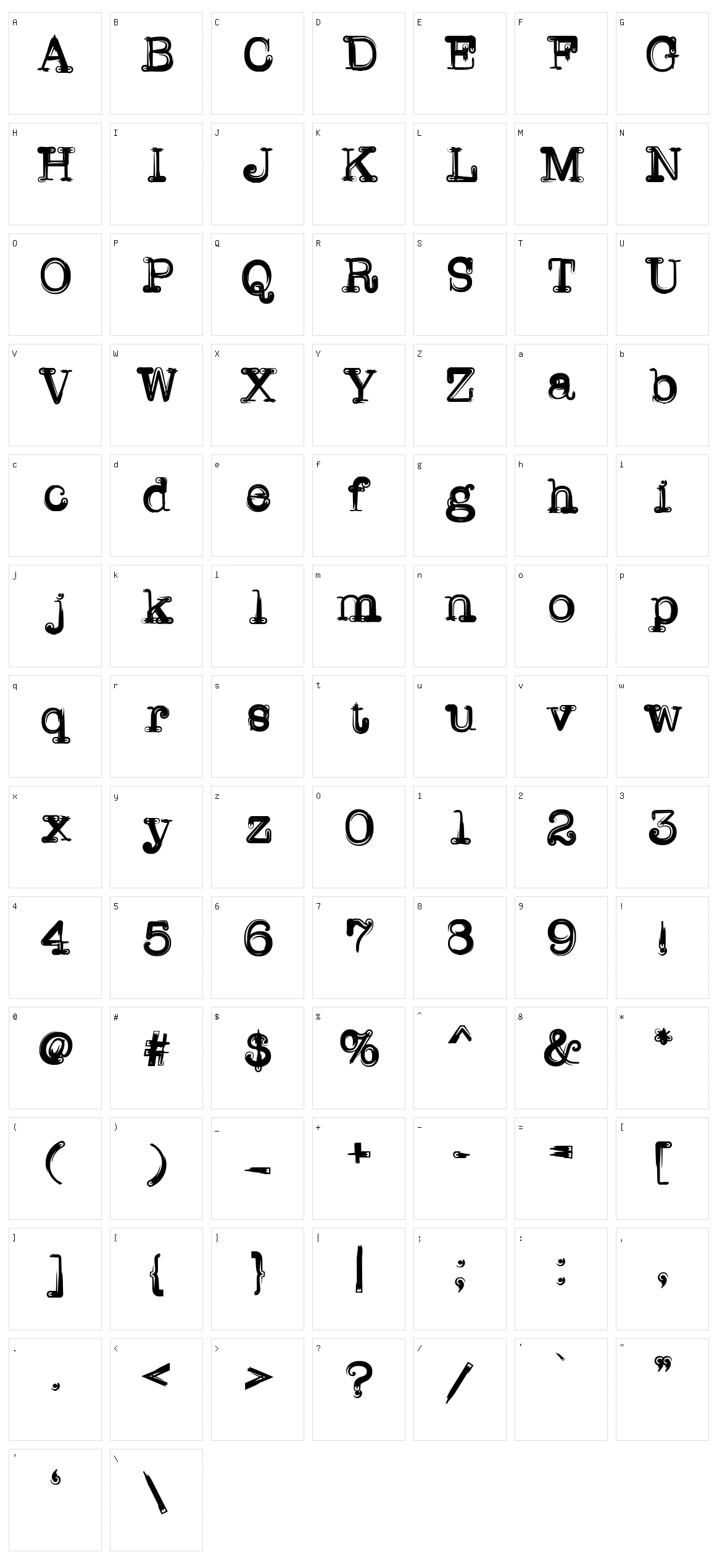
The free font Writer Line is carefully designed by Canale Studio, Inc., showcasing a thoughtful balance of creativity and usability and falls under the Typewriter font style. When you download the ZIP file, it contains only 113.3 KB of font files, making it lightweight and quick to download. Please review the license details below to understand permitted usage and distribution rights. If license information is not available, we recommend using this font for personal projects only or contacting the author directly for commercial usage permissions.